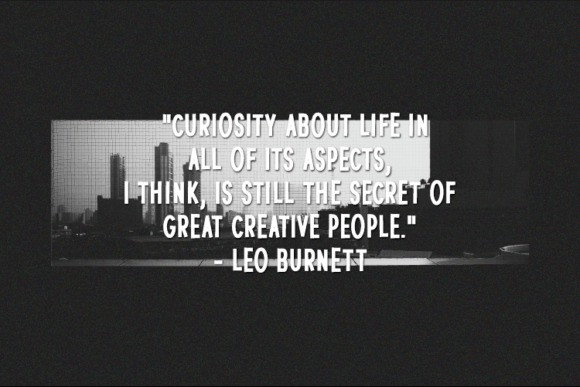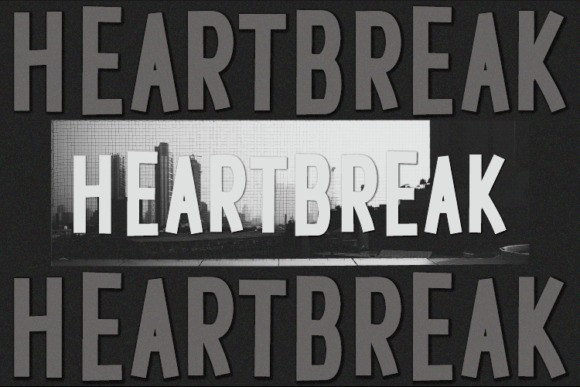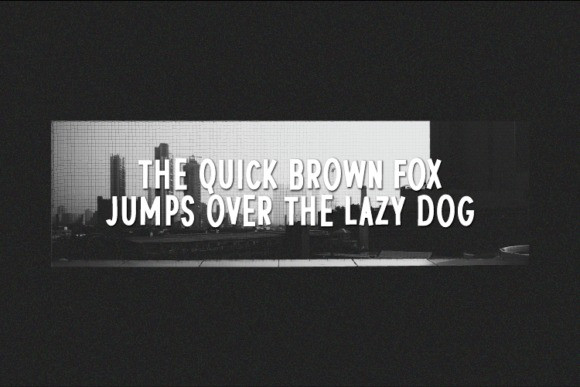
Heartbreak Display Font
Heartbreak Display Font is a beautiful sans serif font that will make a wonderful asset to your collection. Add it to your logos, quotes, T-shirts, greeting cards, business cards, and many more, and make them outstanding!